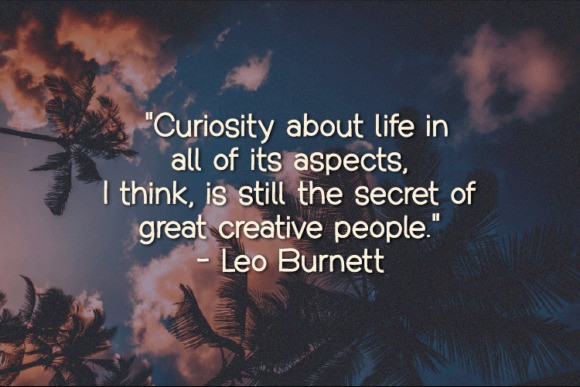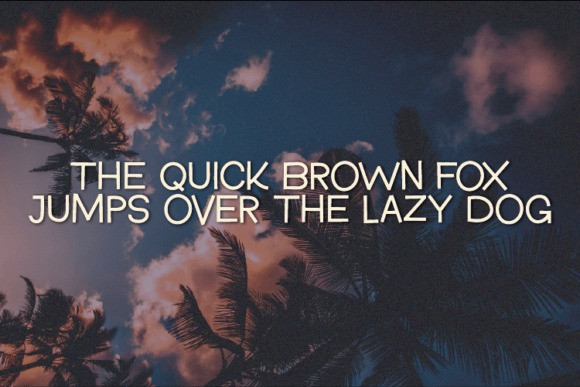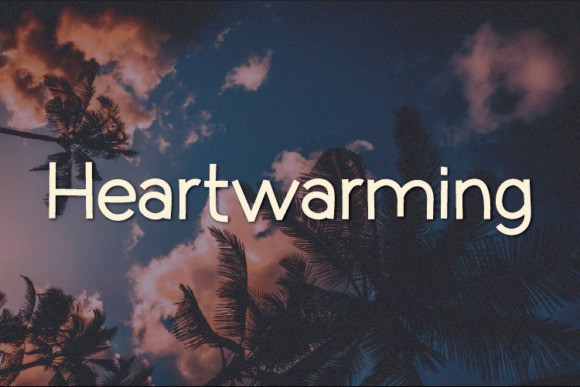
Heartwarming Font
Heartwarming Font is an interesting and unique sans serif font perfect for quotes, notes, T-shirts, and many more. Add it to your font collection, and it will make your creative projects outstanding!